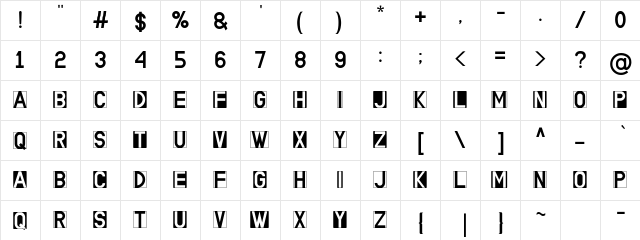
WHITE AND BLACK Regular
| Designer | Indra Gunawan |
Design Context for WHITE AND BLACK Typeface
WHITE AND BLACK is a composed and adaptable typeface that performs quietly and consistently across a wide range of design contexts.
Pro Tip: Use WHITE AND BLACK in both headline and body roles to test its range before committing to a single application.